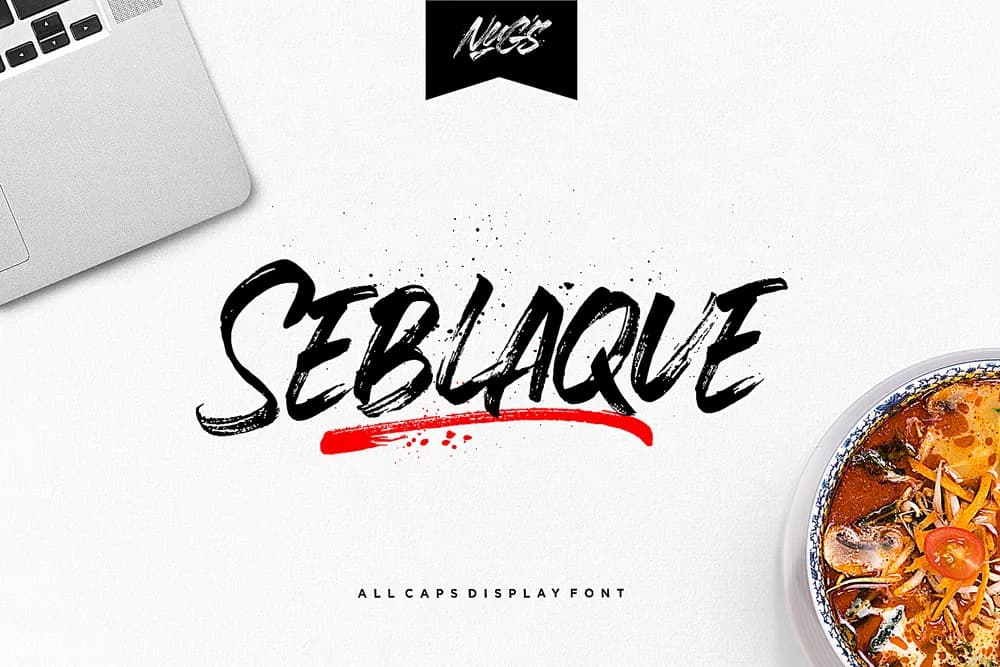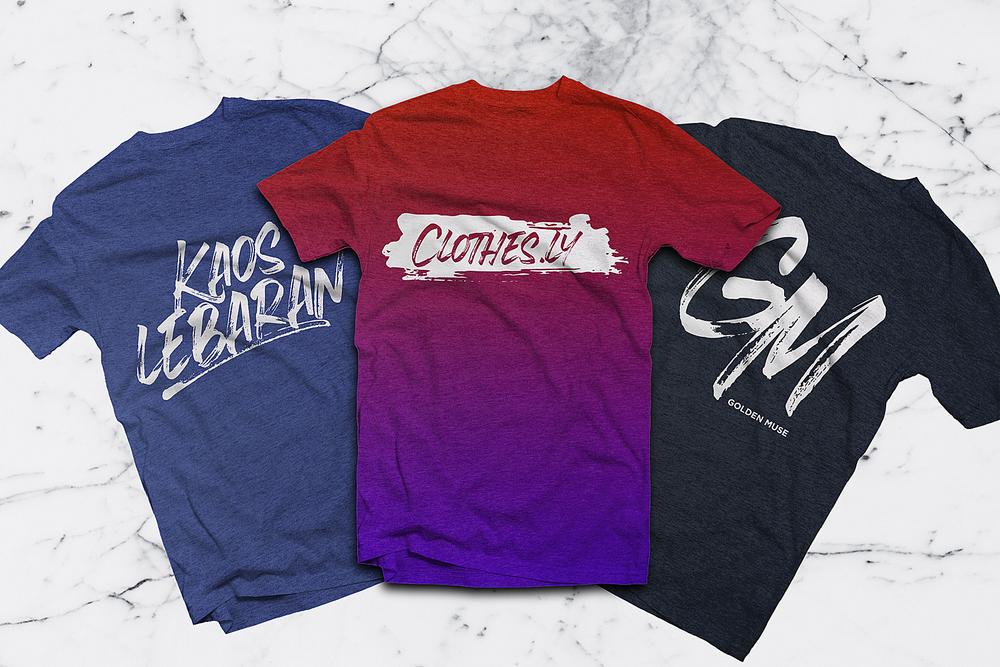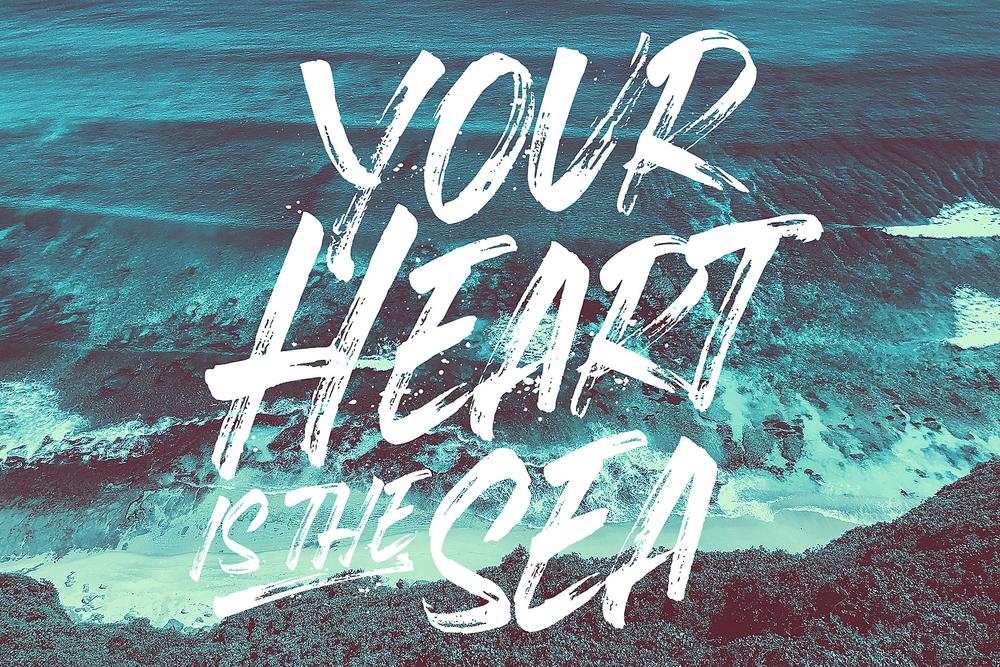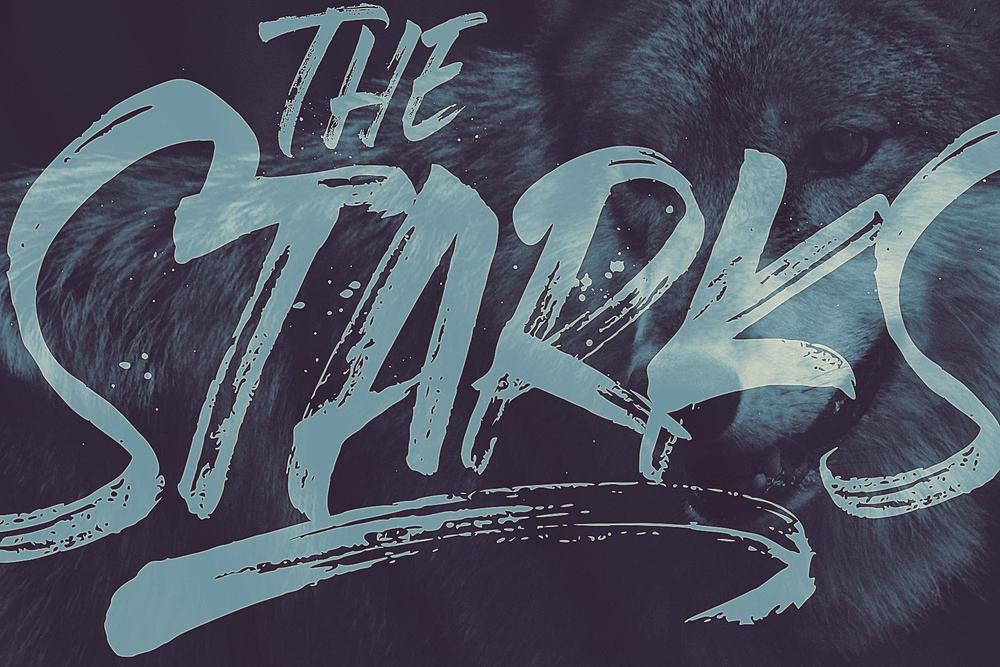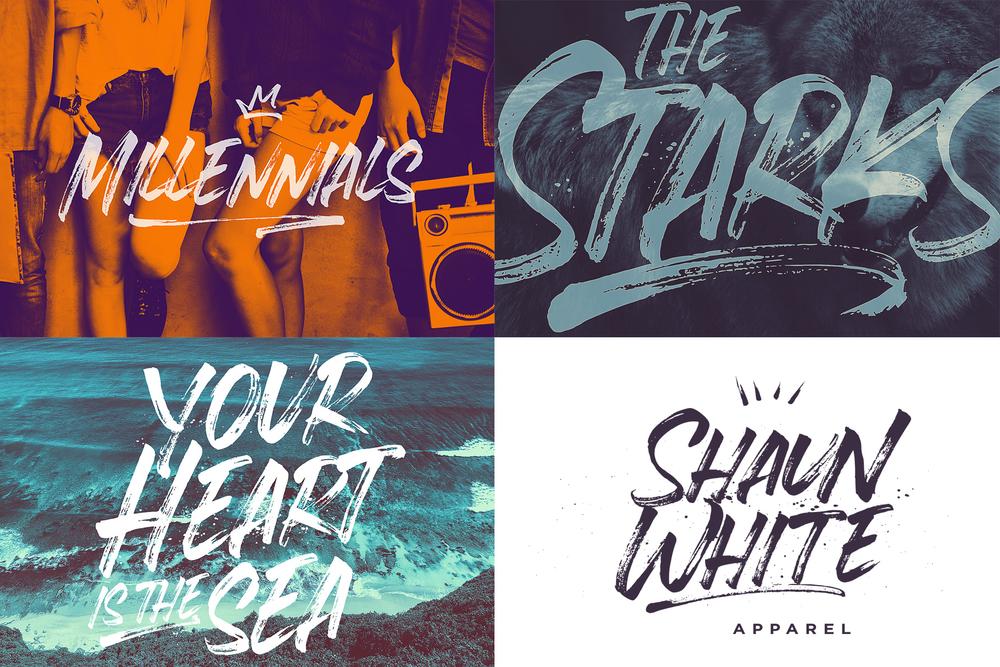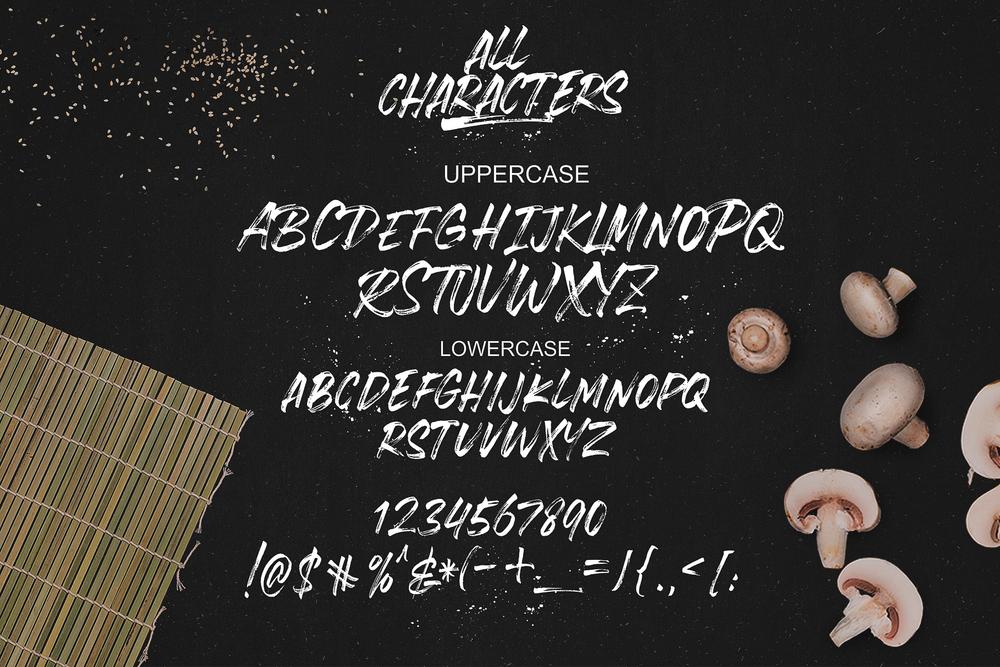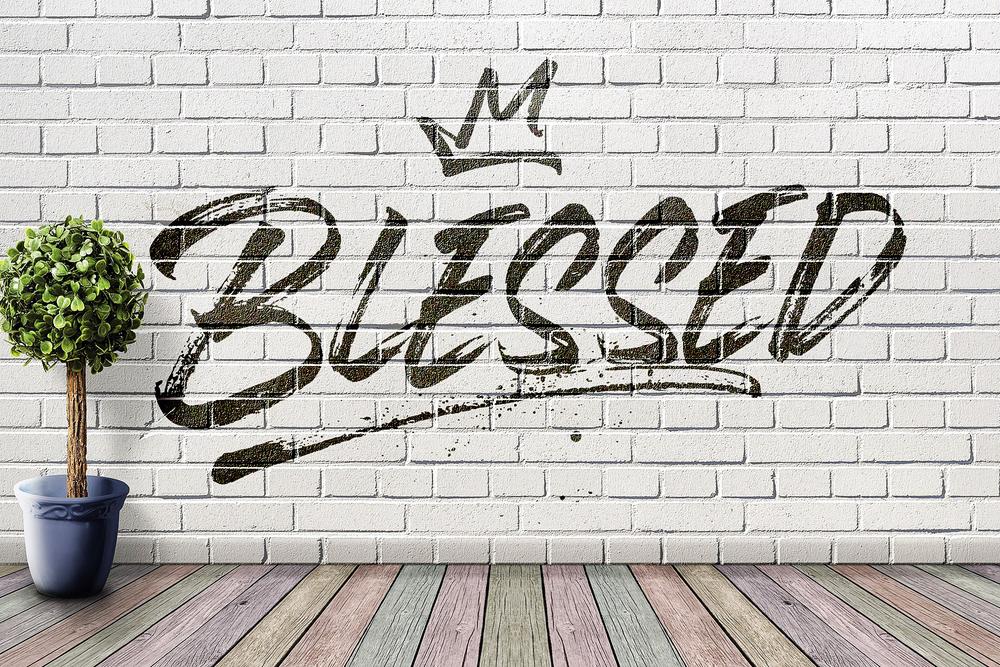
Seblaque Feel is a hand drawn font that was created with a dry brush. Perfect for big displays, titles, posters, marketing & advertising Product Content : SEBLAQUE.OTF SEBLAQUE.TTF SEBLAQUE SWASH.OTF SEBLAQUE SWASH.TTF